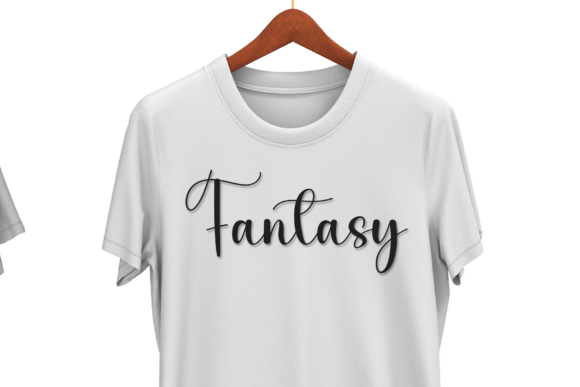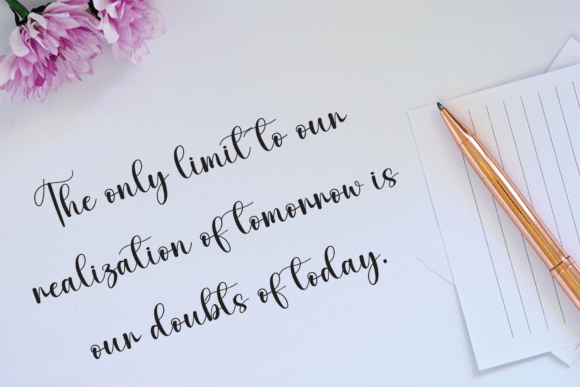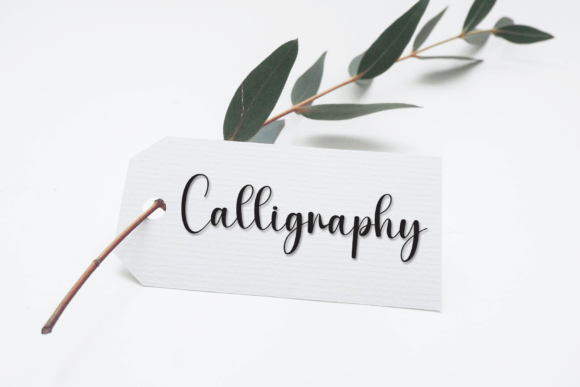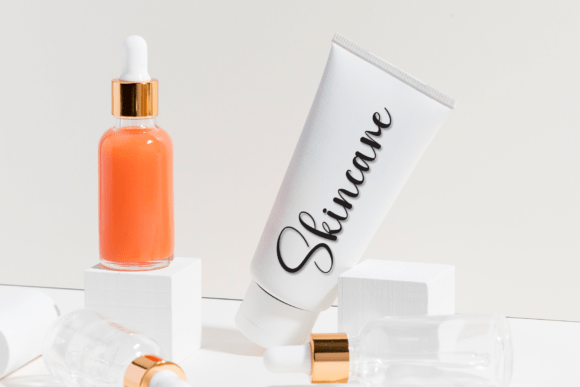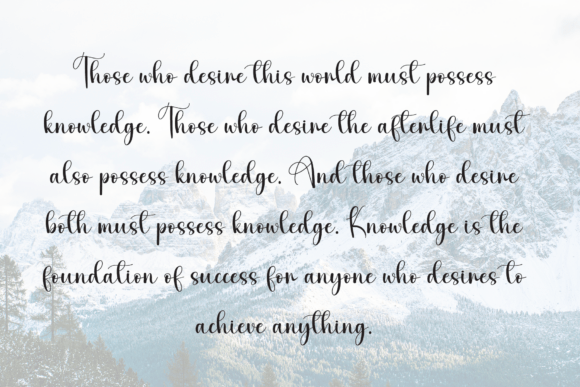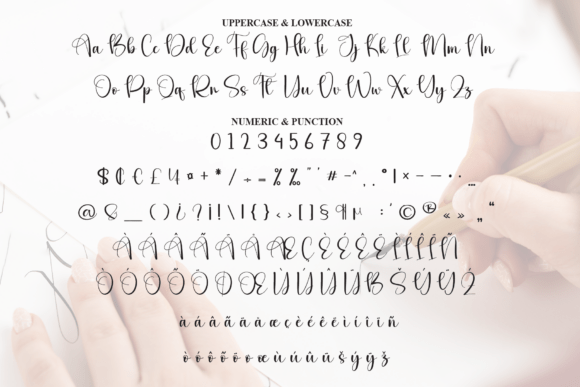
Discover the Elegance of Beautiful Signature Font
Are you on the hunt for a font that exudes elegance, sophistication, and a touch of modern flair? Look no further than the Beautiful Signature font, an exquisite handwritten typeface that is sure to capture your heart. This stunning font is meticulously crafted to bring a classy, calligraphic feel to your projects, while still feeling fresh and contemporary.
The Perfect Blend of Classic and Modern
Beautiful Signature font masterfully blends traditional calligraphic influences with modern design sensibilities. The result is a font that feels both timeless and current, making it perfect for a wide range of design applications. Whether you’re working on a branding project, crafting beautiful wedding invitations, or creating stunning social media graphics, this font is sure to elevate your work to new heights.
What Makes Beautiful Signature Font Stand Out?
- Exquisite Handwritten Style: Beautiful Signature boasts a beautiful, handwritten style that adds a personal touch to any project. Its elegant strokes and flowing lines make it perfect for creating sophisticated and eye-catching designs.
- Classy Calligraphic Influences: The font’s calligraphic roots give it a refined, high-end feel that’s perfect for luxury brands, wedding designs, and other high-end applications.
- Contemporary and Fresh: Despite its classic influences, Beautiful Signature font feels modern and fresh, making it perfect for designers who want to create designs that feel current and on-trend.
- Versatile and Easy to Use: This font is incredibly versatile and can be used for a wide range of design projects, from digital graphics to print materials.
How to Use Beautiful Signature Font in Your Designs
Beautiful Signature font is incredibly easy to use and can be incorporated into your designs in a variety of ways. Here are a few ideas to get you started:
- Branding and Logos: Use Beautiful Signature font to create stunning logos and branding materials that exude elegance and sophistication.
- Wedding Designs: This font is perfect for creating beautiful wedding invitations, stationery, and other wedding-related designs.
- Social Media Graphics: Add a touch of elegance to your social media graphics with Beautiful Signature font.
- Print Materials: Use this font to create stunning print materials, such as brochures, flyers, and business cards.
Tips for Getting the Most Out of Beautiful Signature Font
To get the most out of Beautiful Signature font, here are a few tips to keep in mind:
- Experiment with Font Sizes: Beautiful Signature font looks great in a variety of font sizes, so don’t be afraid to experiment to find the perfect size for your design.
- Pair it with Other Fonts: This font pairs beautifully with other fonts, so try combining it with a bold font for headings and a clean font for body text.
- Use it for Headlines and Titles: Beautiful Signature font is perfect for headlines and titles, where its elegant style can really shine.
In conclusion, Beautiful Signature font is a truly exquisite handwritten typeface that is sure to become a favorite among designers and crafters. Its perfect blend of classic calligraphic influences and modern design sensibilities makes it perfect for a wide range of design applications. Whether you’re working on a branding project, crafting beautiful wedding invitations, or creating stunning social media graphics, this font is sure to elevate your work to new heights. So why wait? Fall in love with Beautiful Signature font and bring your projects to the highest levels!